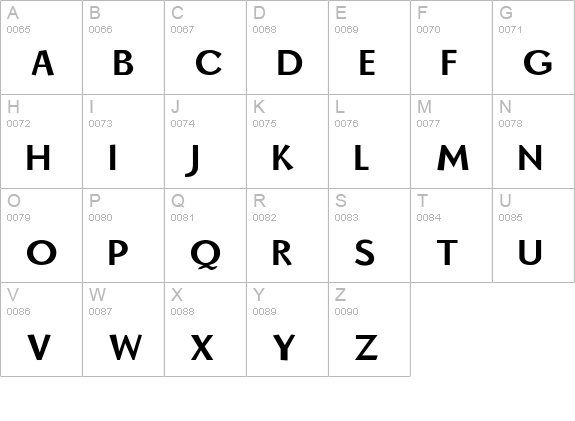
BorzoiReaderBol Font Details
Introducing BorzoiReaderBol font, a sophisticated and elegant typeface designed for those seeking a touch of class in their projects. With its sleek lines and stylish curves, BorzoiReaderBol exudes a sense of refinement and modernity that is perfect for a wide range of design applications. This font is ideal for creating eye-catching headlines, elegant invitations, stylish logos, and much more. Its bold yet graceful appearance will make your text stand out and leave a lasting impression on your audience. Best of all, BorzoiReaderBol is available for free download at FontsMarket.com. So why wait? Elevate your designs with this exquisite font today and see the difference it can make!